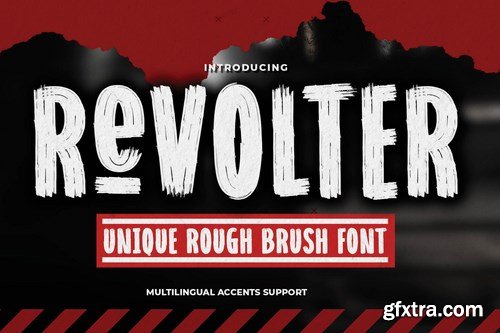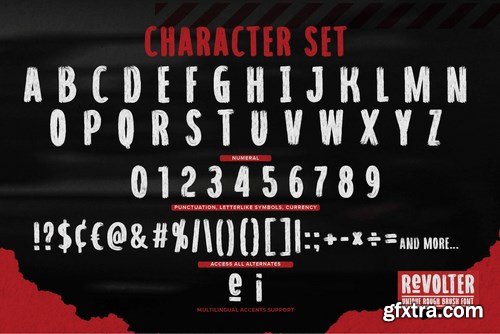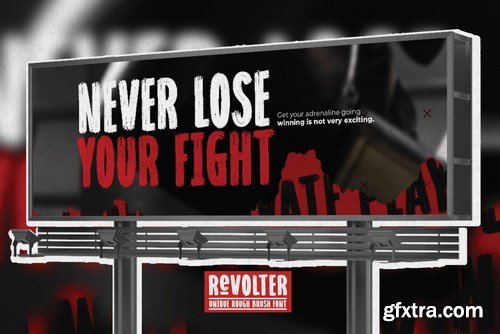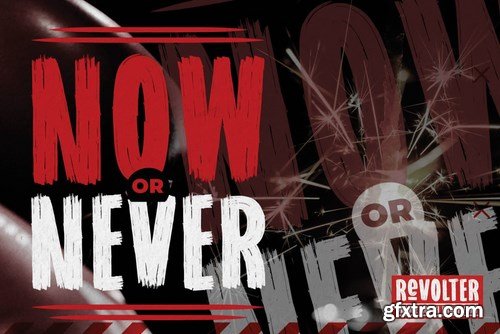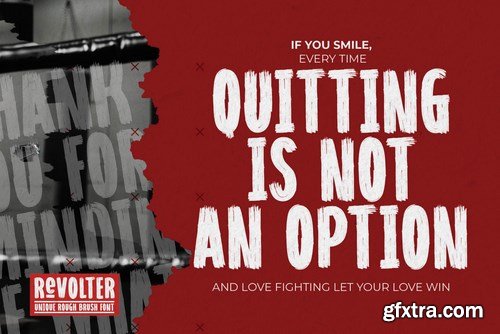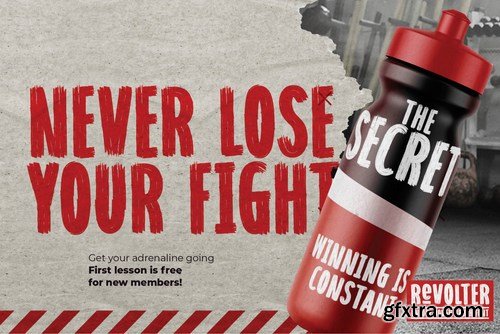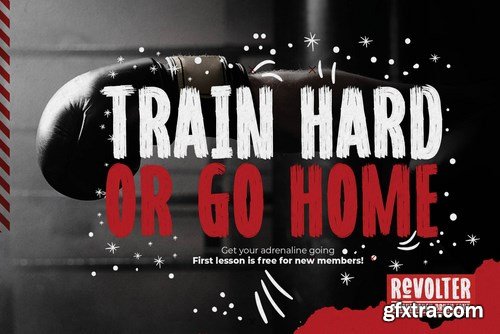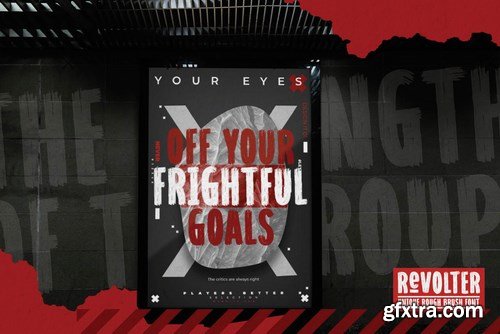
Here comes a New font, Introducing Revolter It's Unique Rough Brush Font is a Signature Style and classy style, this font is great for your creative projects such as watermark on photography, and perfect for logos & branding, invitation,advertisements,product designs, stationery, wedding designs,label ,product packaging, special events or anything that need handwritting taste.
Revolter a natural Hand Drawn feel. This handmade font will make your design has a beautiful natural touch for each details. It is perfect for any design project as Invitation,logo, book cover, craft or any design purposes,photos, photography overlays, signs, window art, scrapbooking, tags and so much more! That is has charming, authentic and relaxed characteristic more natural look to your text.